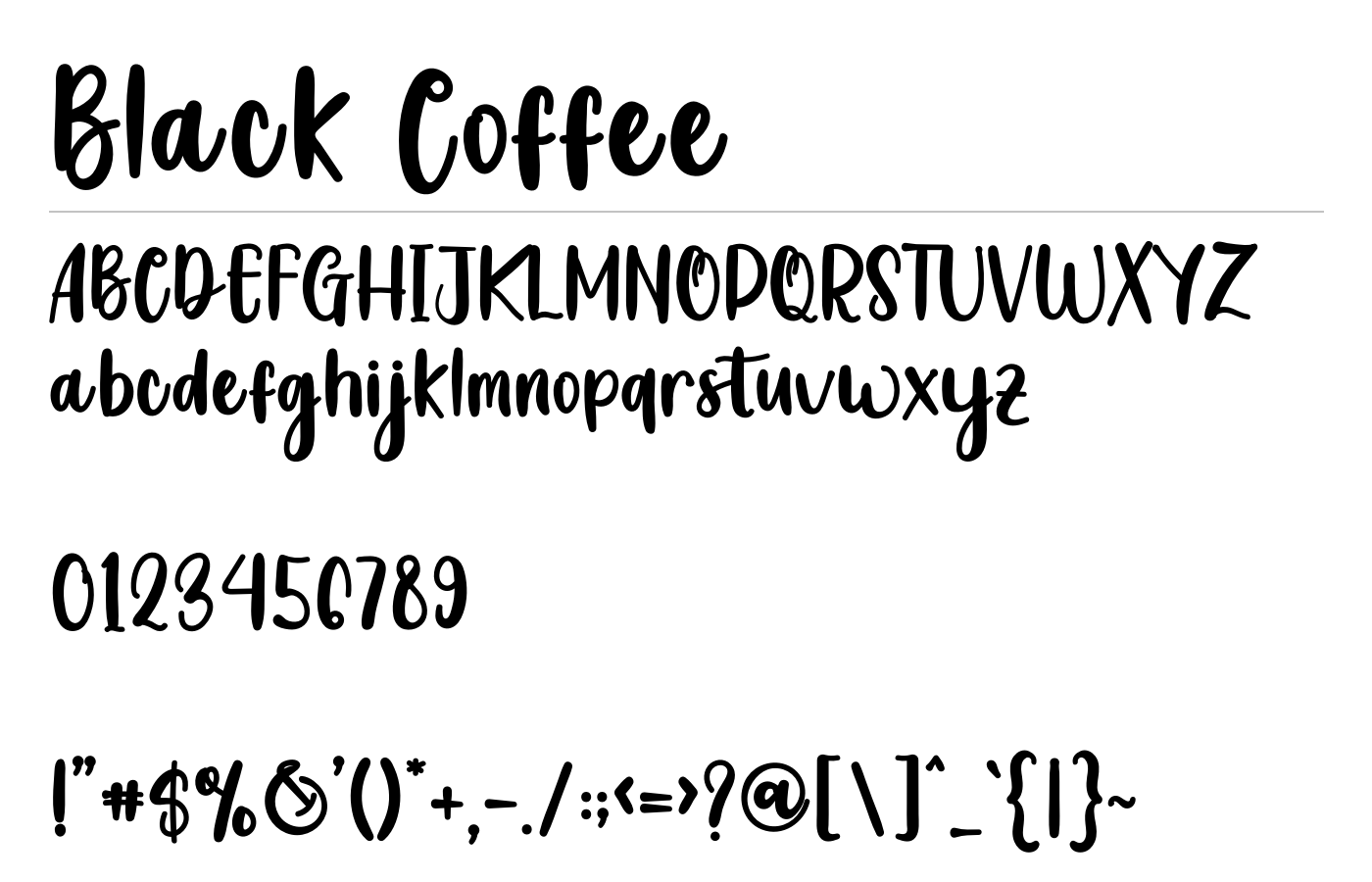
Black Coffee is a playful and friendly handwritten script font with a casual, organic feel. Its thick, rounded strokes and lively letterforms create an inviting and approachable style, perfect for creative projects, branding, and packaging that aim to convey warmth and personality. This font works best in headlines, logos, and informal designs where a personal and fun touch is desired.
Black Coffee Font